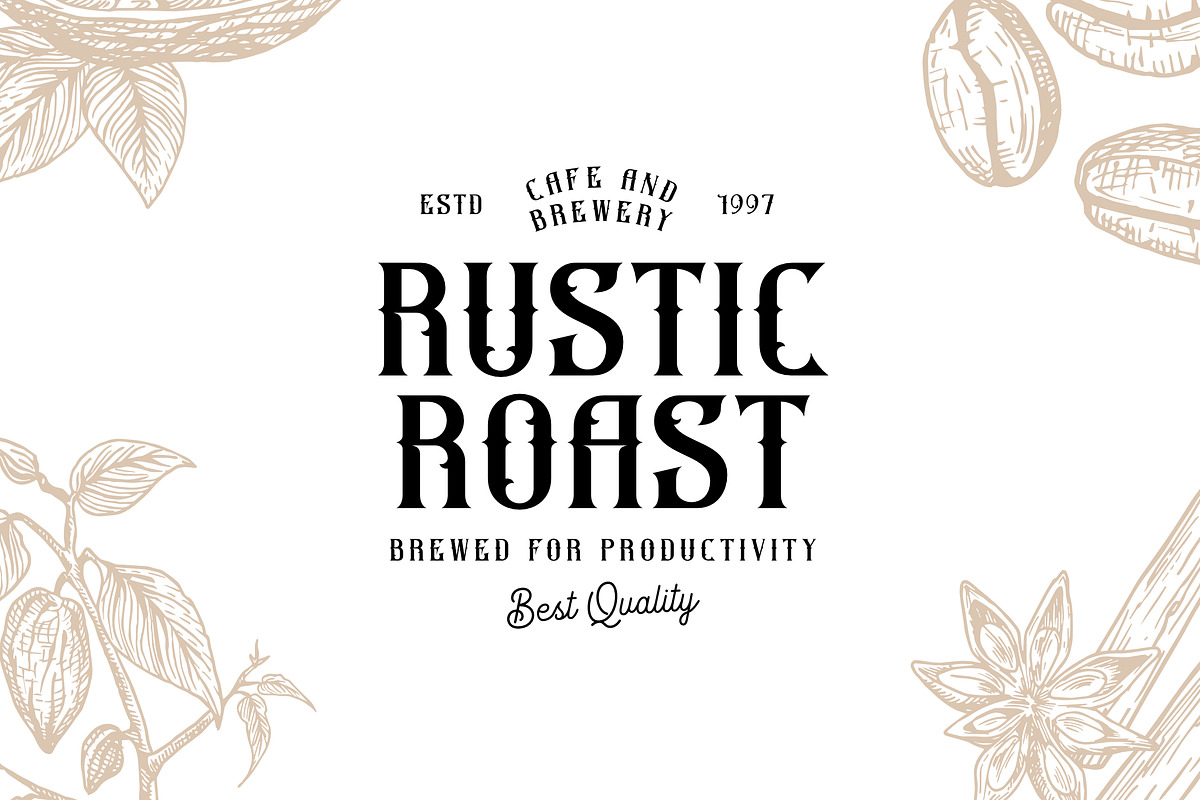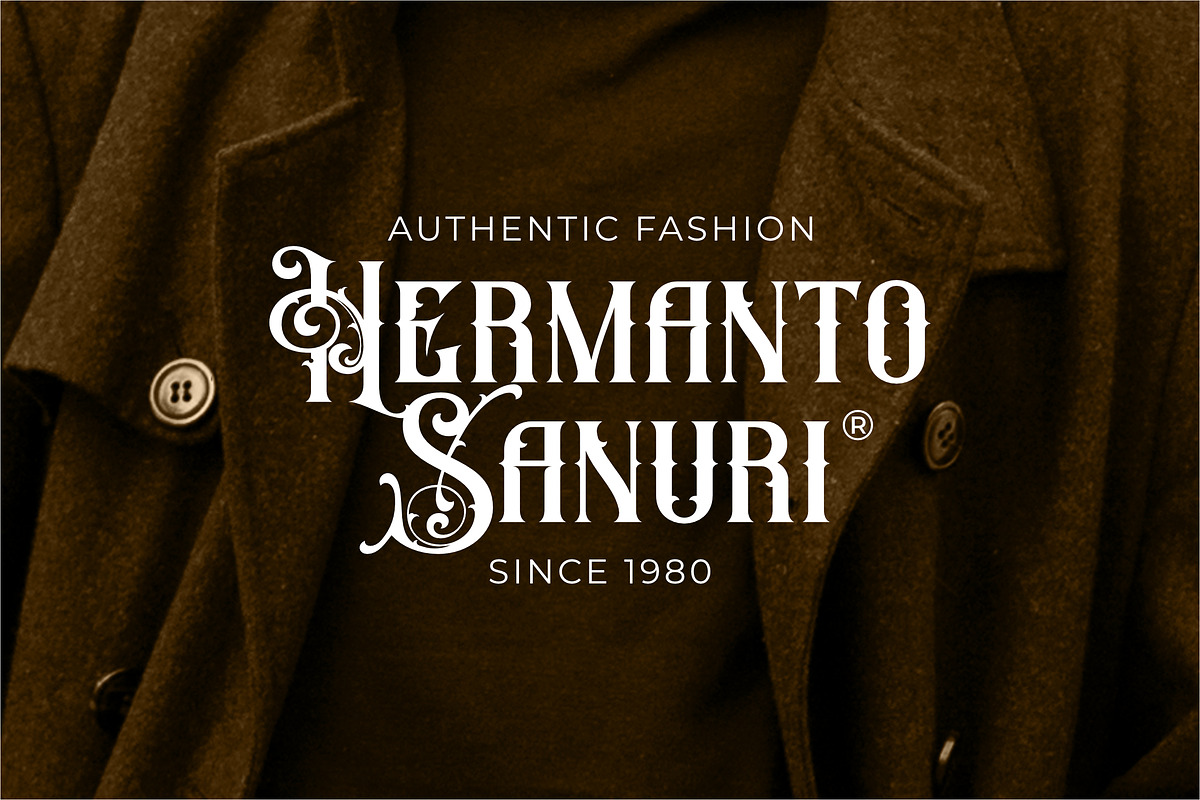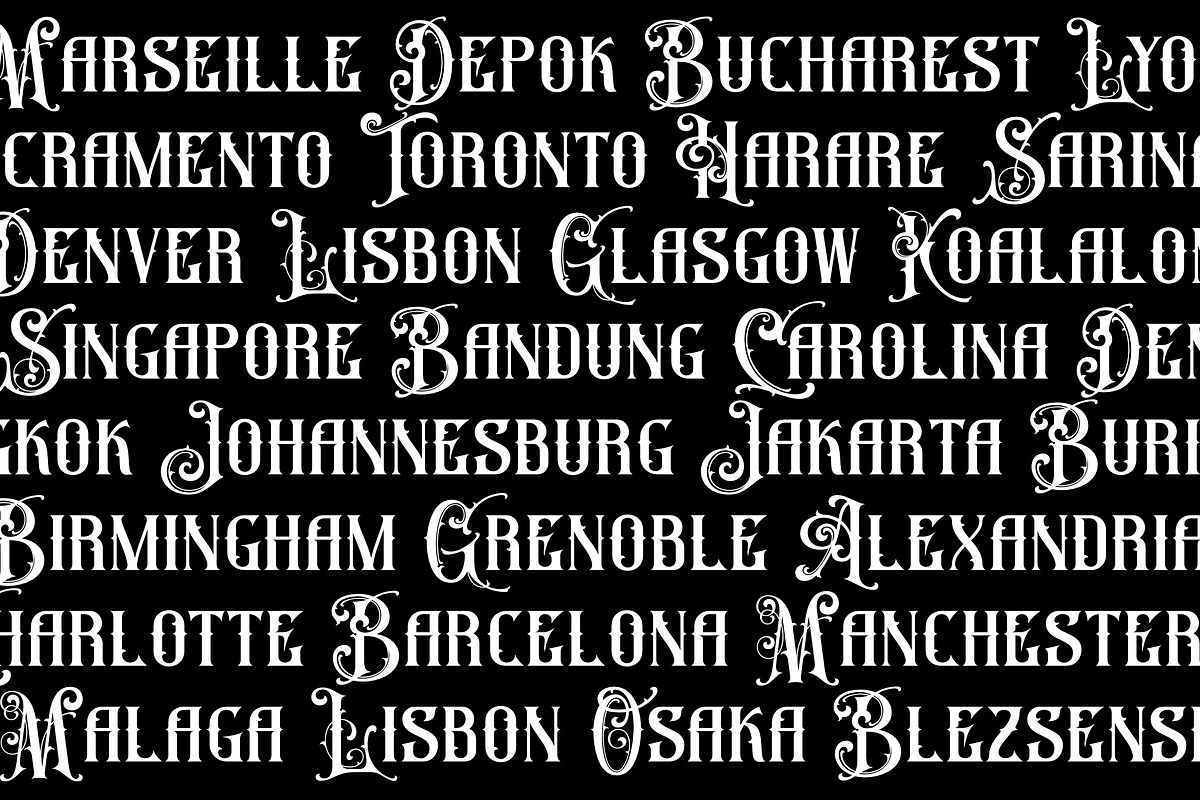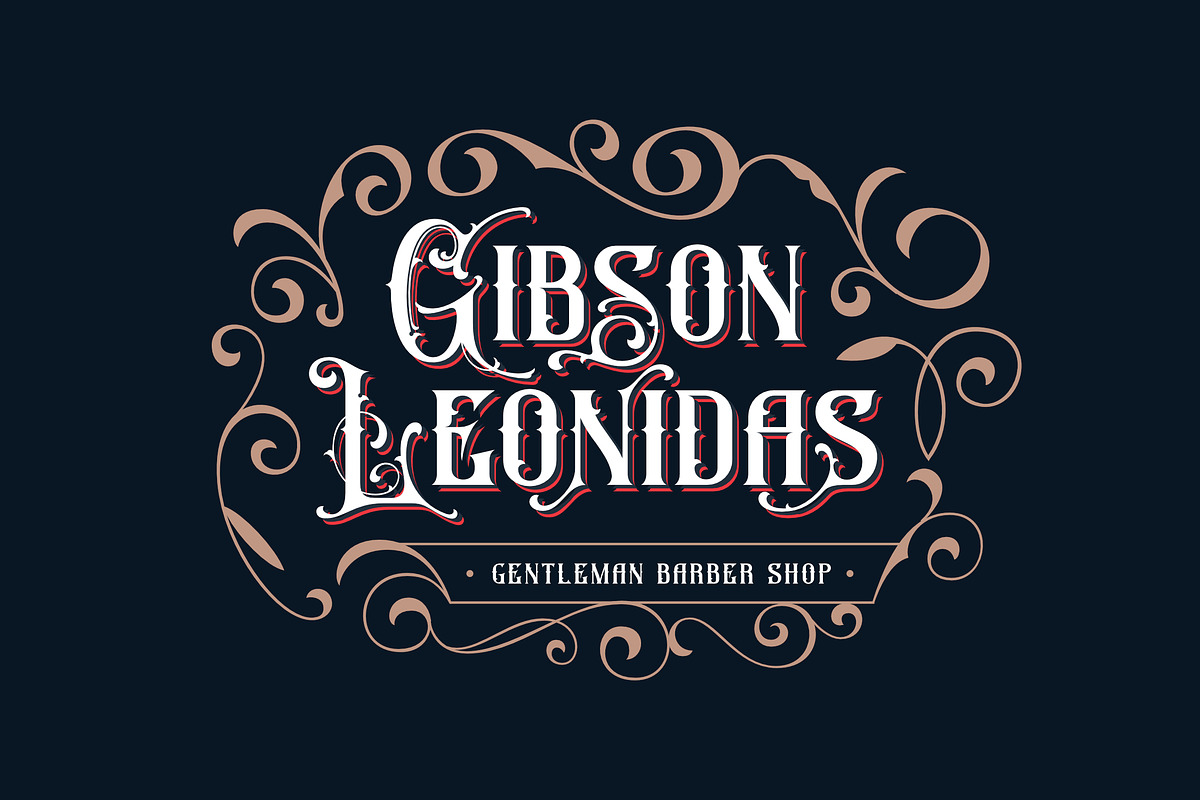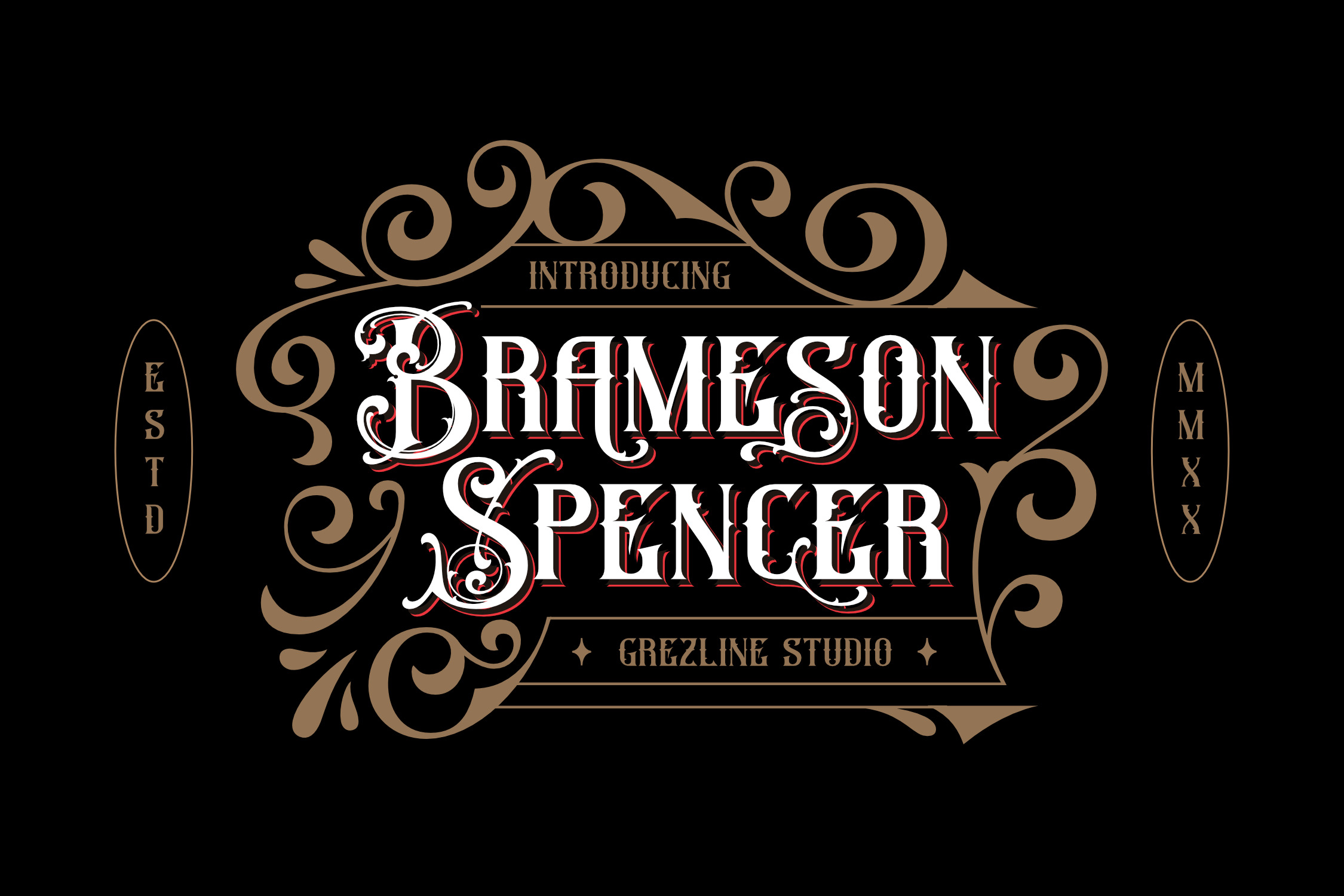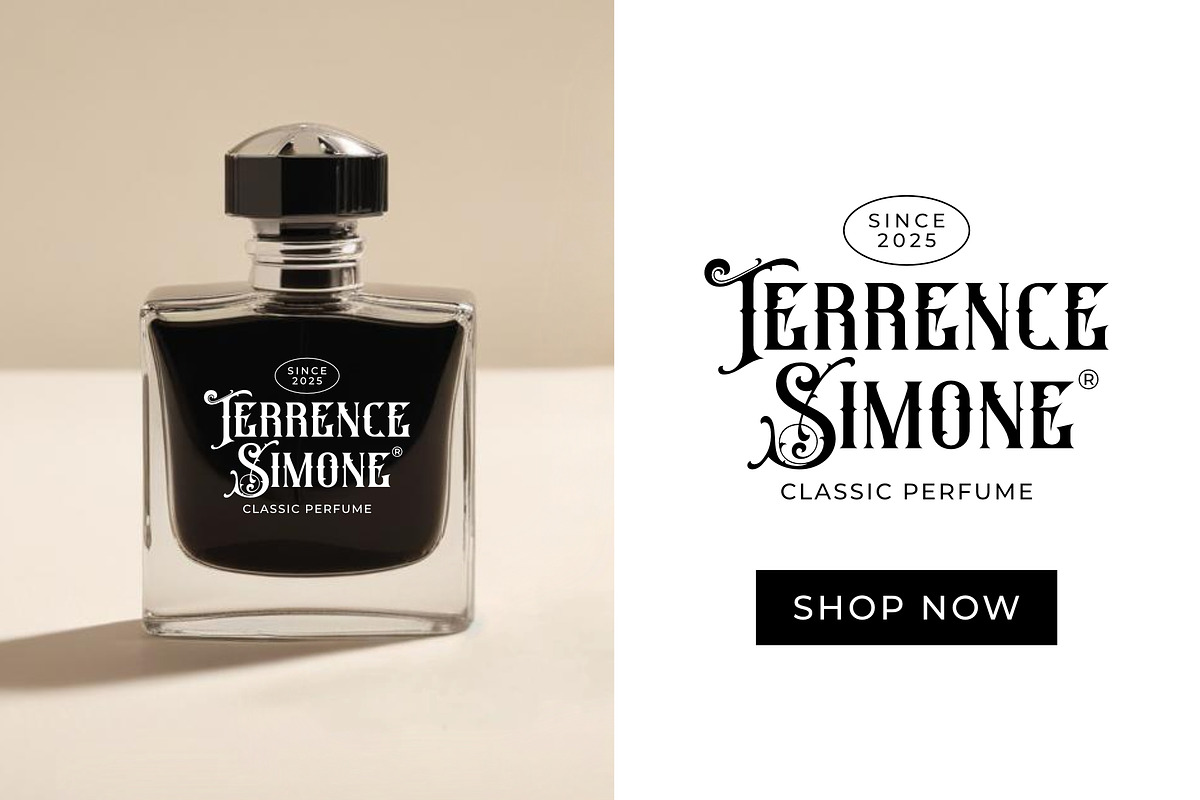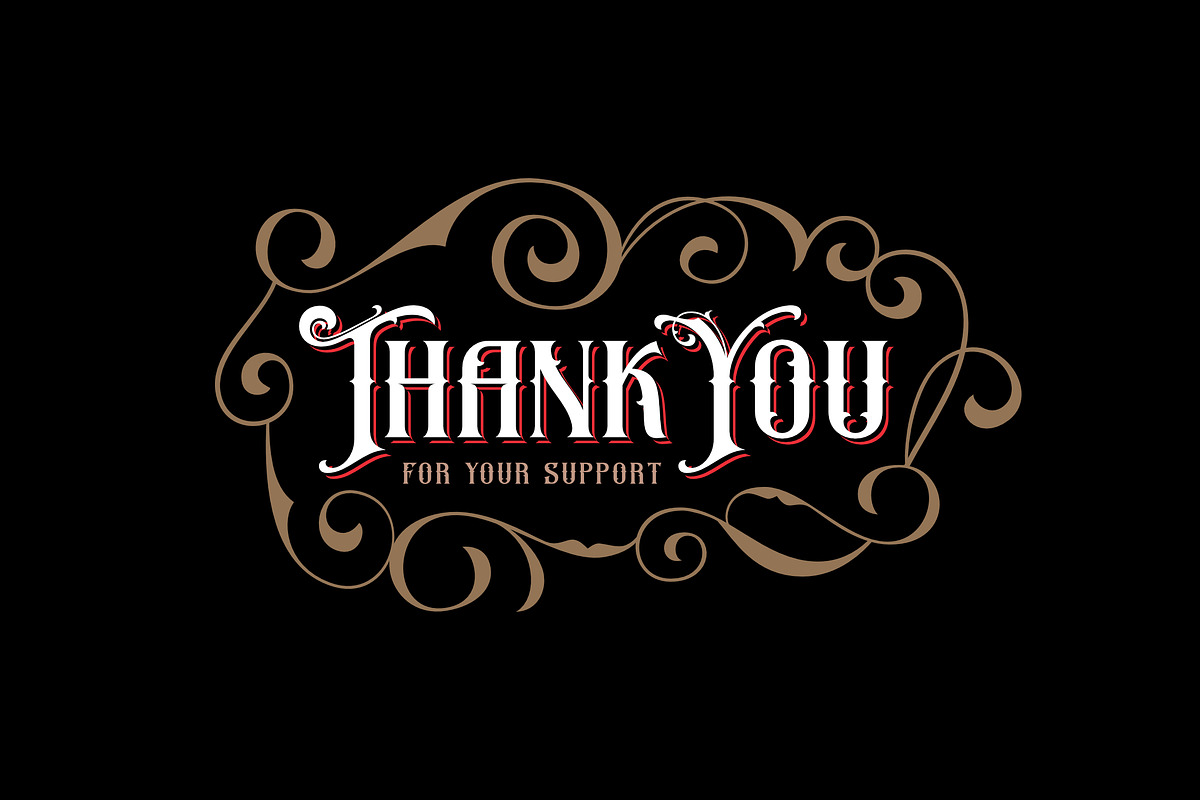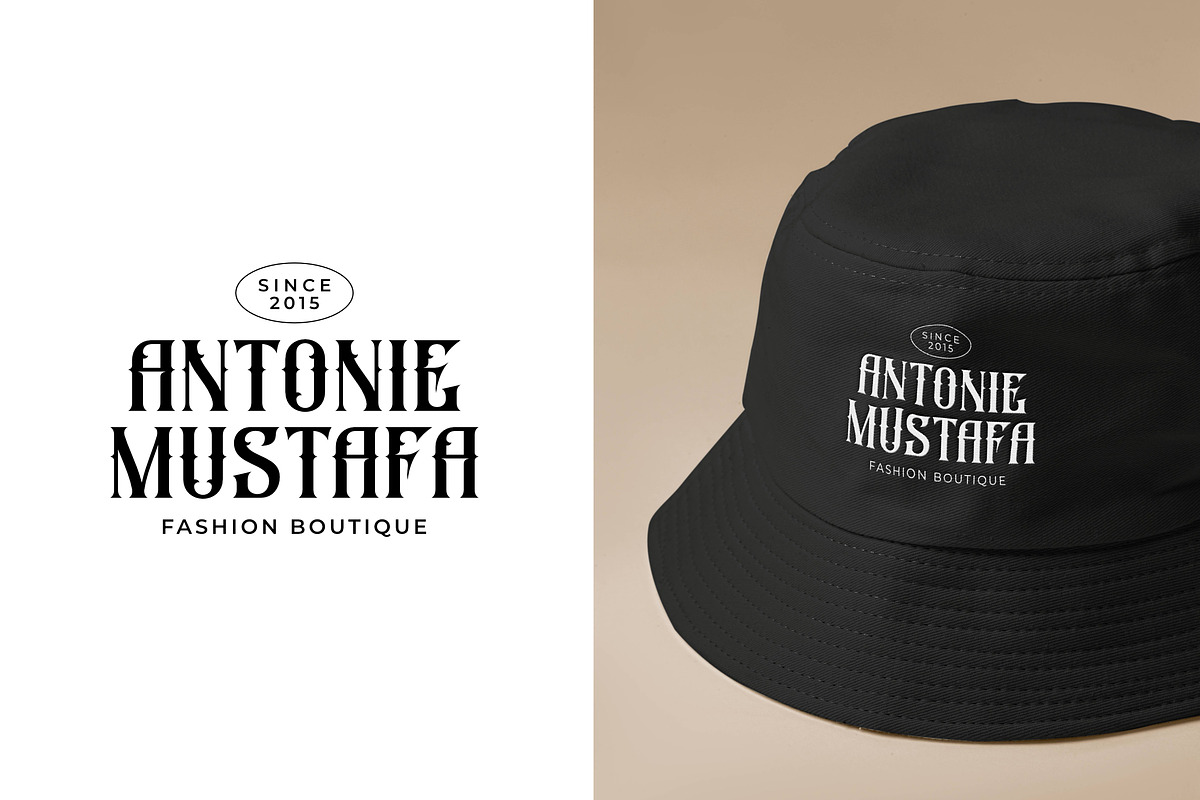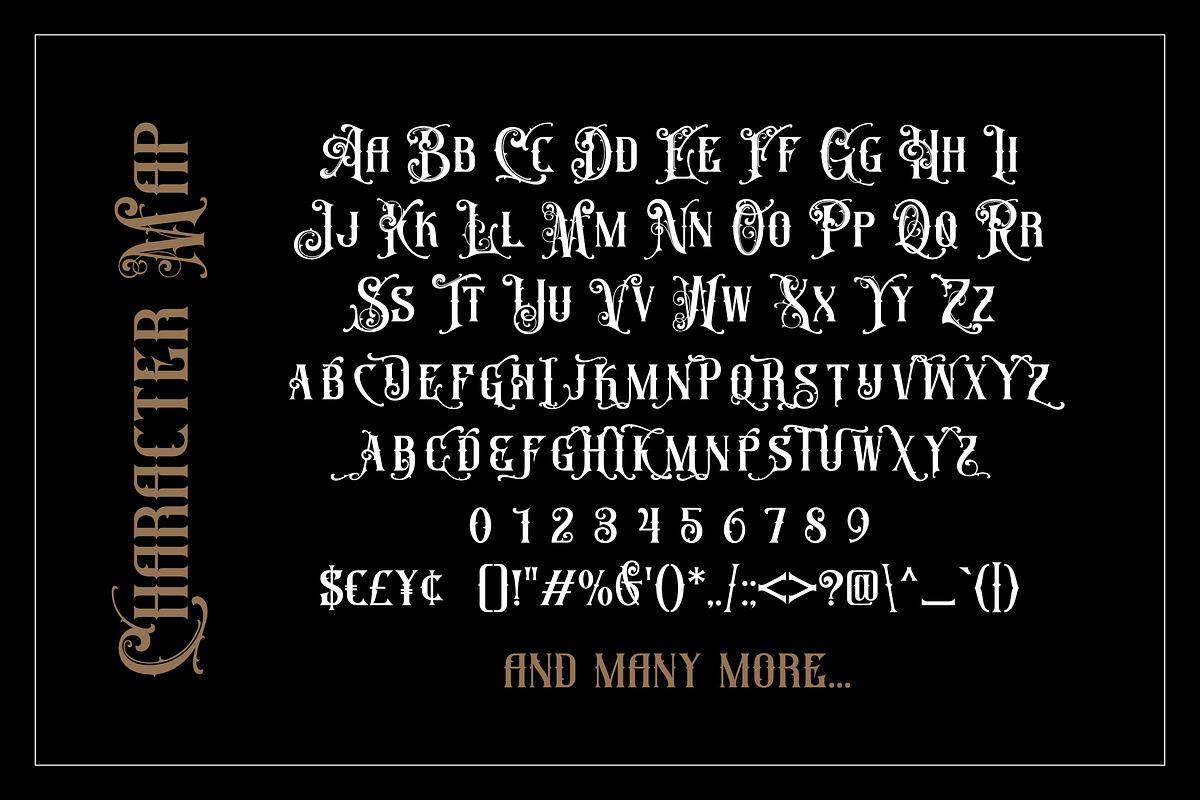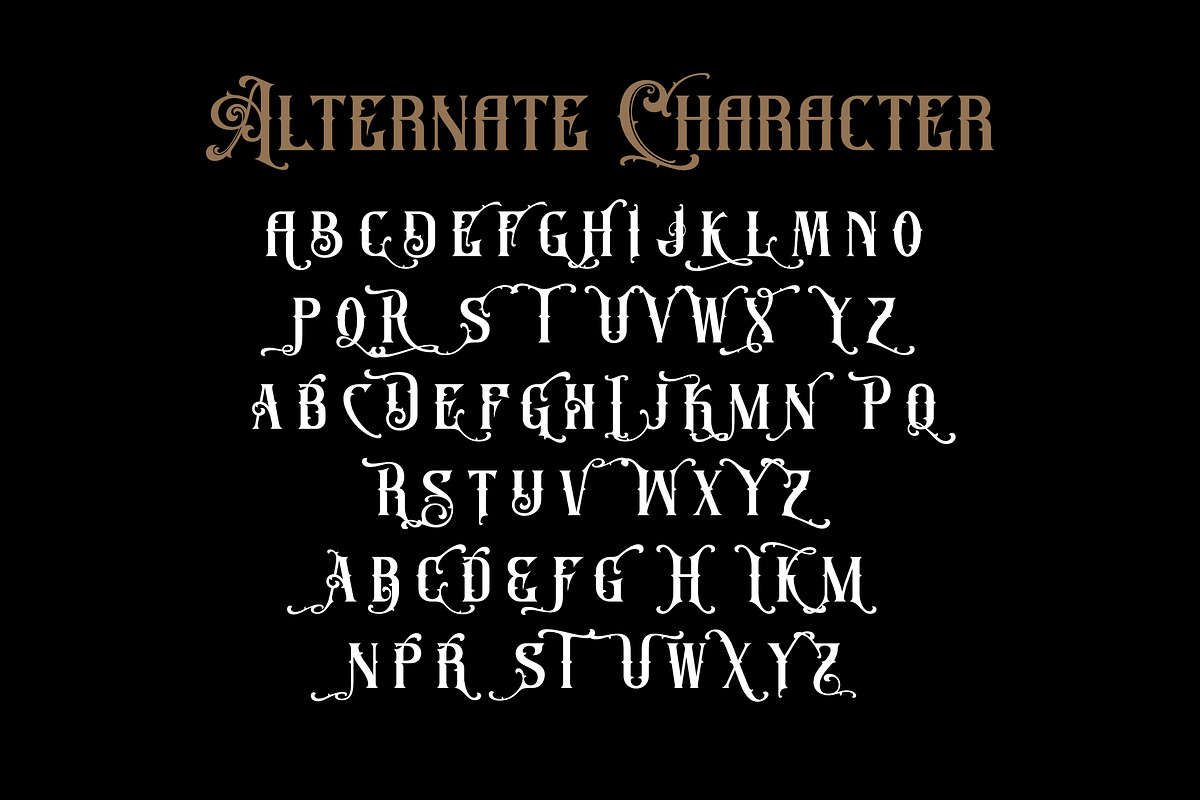
Brameson Spencer - Vintage Font
Introducing Brameson Spencer, a display typeface crafted with bold classic character and refined ornamental details. Designed to deliver an elegant, confident, and premium visual presence in every composition. This font is ideal for high-end branding, posters, product packaging, editorial headlines, and creative projects that demand a strong and distinctive identity. The combination of decorative serif forms and a vintage-modern aesthetic makes Brameson Spencer a powerful choice for designs that aim to stand out with timeless sophistication.
- Alternate and Ligature
- Multilingual Language